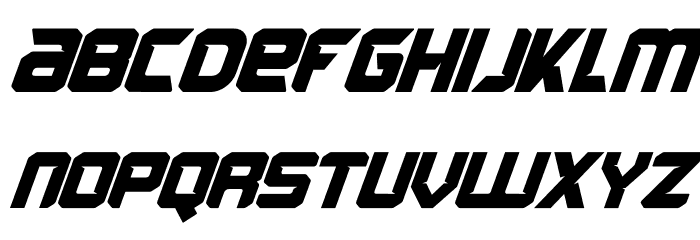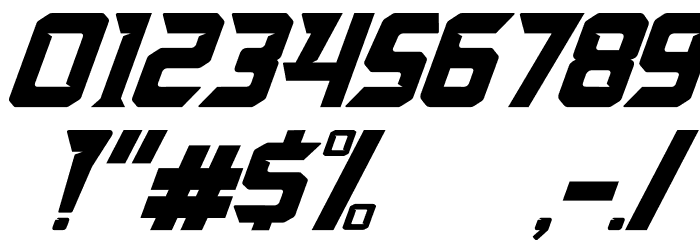
Arcades Italic Font
This font features a bold and dynamic style with a distinctly italicized slant, giving it a sense of motion and energy. The characters are angular and geometric, with sharp edges and a futuristic appearance. The uppercase and lowercase letters maintain a consistent style, while the numerals and special characters are designed to match the overall aesthetic. The font's bold weight and italic style make it stand out, suitable for projects that require a modern and edgy look.
- Proposed Projects: Ideal for video game titles, tech branding, sports team logos, and dynamic posters.